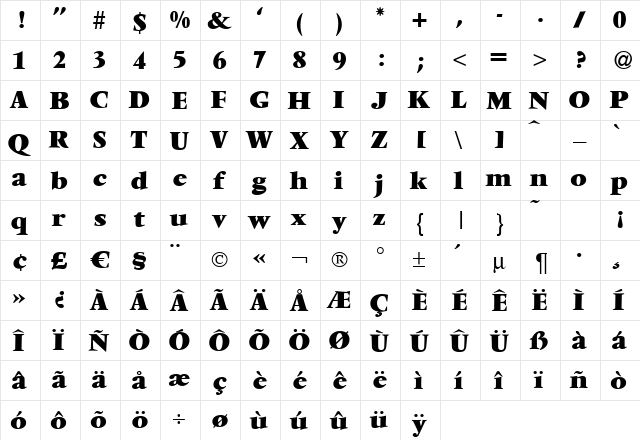
V691-Roman-Xbold Regular
Design Context for V691-Roman-Xbold Typeface
V691-Roman-Xbold offers clean, dependable letterforms without strong stylistic allegiance, making it a practical choice for designers who need flexibility. Its bold stroke weight gives it real presence on the page.